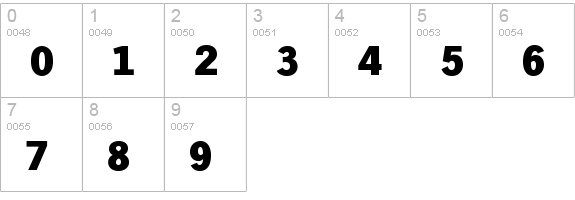
Hamburg-ExtraBold is an extra-heavy, attention-grabbing variant in the Hamburg typeface family \xE2\x80\x94 well suited to high-impact headlines, posters, and bold branding.
Hamburg-ExtraBold font is a bold and powerful typeface that exudes confidence and strength. Its thick, heavy lines make a bold statement, while its clean and modern design adds a touch of sophistication. This font is perfect for headlines, titles, and any design project that requires a strong and impactful typeface. Its clarity and legibility make it a great choice for both print and digital media. One of the best things about Hamburg-ExtraBold font is that it is freely available to download at FontsMarket.com. This means that you can easily access and use this amazing font without any restrictions or limitations. Whether you are a professional designer or a hobbyist, you can now add this incredible font to your collection without spending a dime. So don't miss out on this fantastic opportunity. Enhance your designs with the bold and eye-catching Hamburg-ExtraBold font, and make a lasting impression. Download it for free at FontsMarket.com today.